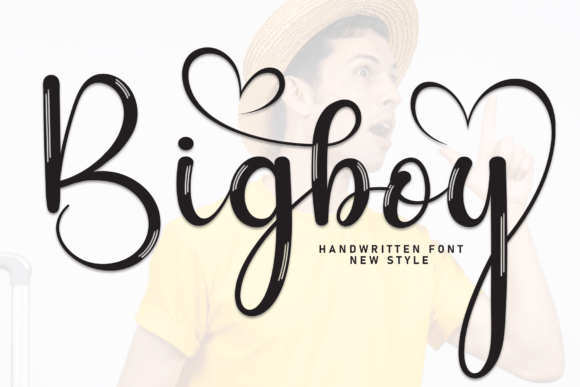
Have you ever stared at a blank page, searching for the perfect font to bring your design to life? You know the feeling – the blank page staring back at you, daring you to take the leap and make it beautiful. It’s in these moments that we discover the magic of typography, and the right font can make all the difference.
Enter Bigboy Font, a charming handwritten display font that’s perfect for adding a touch of whimsy to your designs. Whether you’re crafting a wedding invitation, a birthday card, or simply want to add some personality to your branding, Bigboy Font is an ingenious choice. Its playful energy and friendly appeal make it a valuable asset for any designer looking to give their creations a unique and eye-catching touch.
Key Features of Bigboy Font
- Font Family: Bigboy Font is a unique, bold, and playful font family designed for various applications.
- Character Count: The font family includes a wide range of characters, including uppercase and lowercase letters, numerals, and punctuation marks.
- Unique Characteristics: Bigboy Font features a distinctive, rounded shape with exaggerated lines, giving it a fun and energetic feel.
Bigboy Font Review
When I first stumbled upon the Bigboy Font, I was immediately drawn to its playful and energetic vibe. ✨ The font’s bold lines and rounded edges give it a fun and approachable feel that’s perfect for anything from children’s books to casual advertisements.
The Bigboy Font has a great range of weights, from light to extra bold, making it easy to find the right fit for your design. ✨ The font also comes with a wide range of languages supported, which is a big plus for anyone working on international projects.
While the Bigboy Font is a solid choice for many projects, there are a few limitations to keep in mind. ⚠️ The font can be a bit difficult to read at smaller font sizes, and the bold weights can be overwhelming if used too liberally.
Another issue is that the font’s playful vibe may not be suitable for all types of projects. ⚠️ If you’re working on a design that requires a more serious or professional tone, you may want to consider a different font.
Overall, I think the Bigboy Font is a great choice for designers looking for a fun and energetic font. With its wide range of weights and languages supported, it’s a versatile font that can be used in a variety of projects. Just be mindful of its limitations, and you’ll be all set!
- Wide range of weights (light to extra bold)
- Support for multiple languages
- Playful and energetic vibe
- Great for children’s books, casual advertisements, and more
Bigboy Font: A Practical Application Guide
Tips for Getting the Most Out of Bigboy Font
Here are a few tips to get the most out of Bigboy Font:
- Use it sparingly to create a bold and eye-catching effect
- Pair it with other fonts to create a unique and interesting font combination
- Experiment with different font sizes and colors to achieve the desired effect
The Bigboy Font is commonly used in:
- Grungy and distressed designs
- Retro-style posters and flyers
- Streetwear
Alternatives to Bigboy Font for Designers
Bigboy Font is a bold and playful font, but sometimes designers need alternatives to achieve a similar look or feel. Here are a few options:
Great Vibes is a modern, elegant script font perfect for adding a touch of sophistication to your designs. It’s ideal for use in headings, titles, and quotes where you want to convey a sense of luxury and refinement. Compared to Bigboy Font, Great Vibes is more polished and less playful, making it a great choice for formal designs.